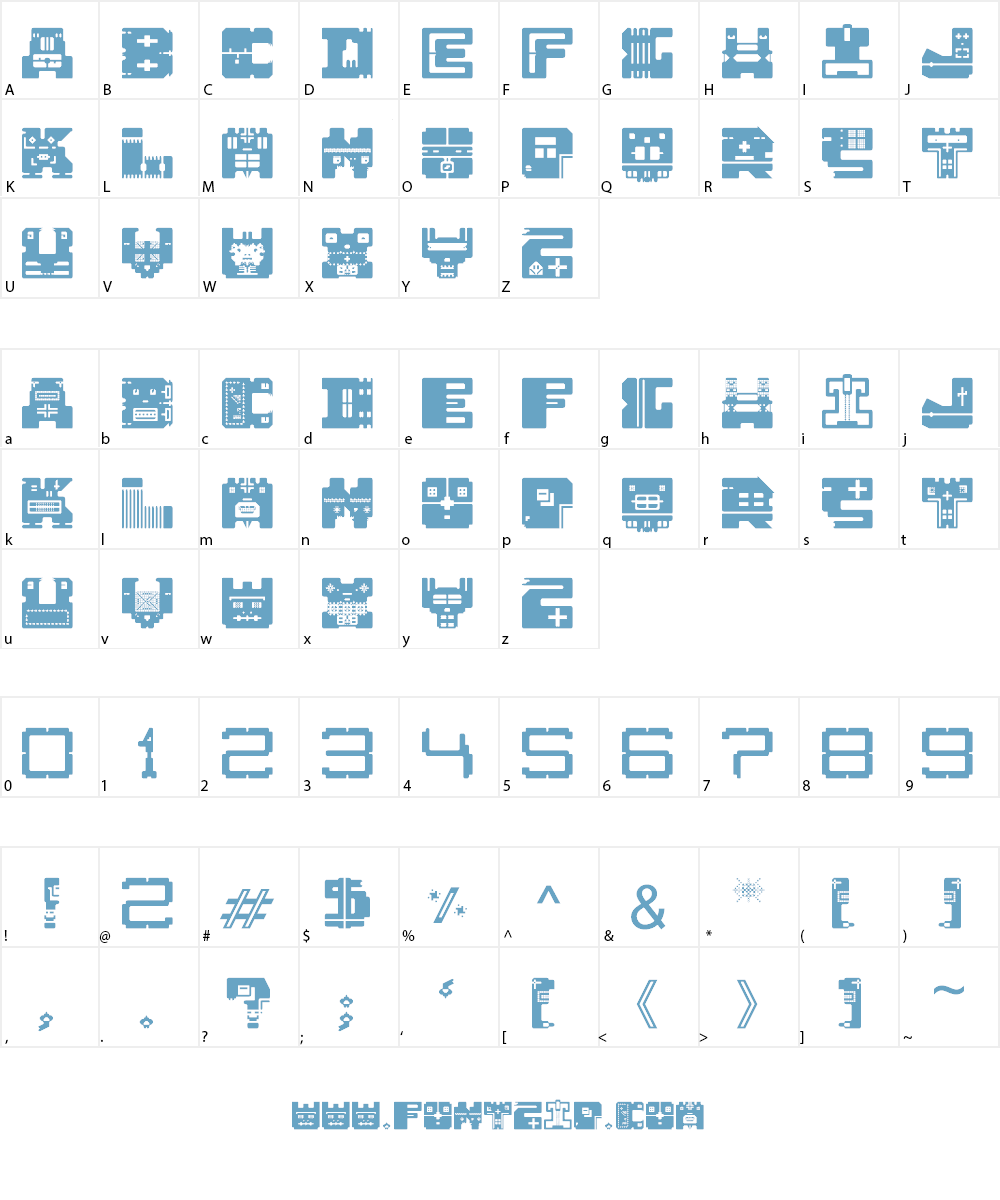
As many of Abneurone works, AFT1 Heterodoxa could be hard to describe, but thoughts for the goth metal movement surely accompanied the painstaking elaboration of the font. Uppercase and Lowercase share the same external shapes but their inner patterns are different to boost your creativity in use.